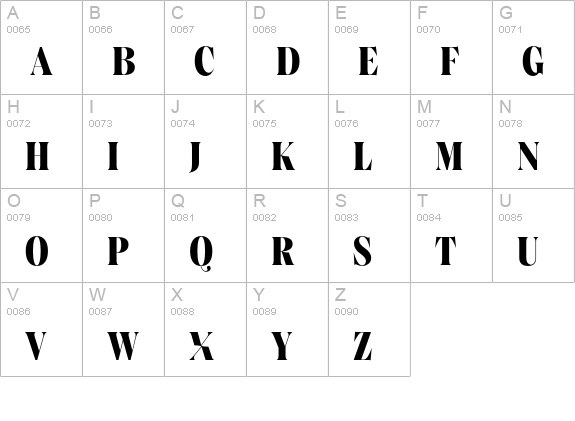
Bolognia Black is a maximum-weight, dramatic variant in the Bolognia typeface family \xE2\x80\x94 well suited to maximum-impact headlines, posters, and packaging.
Bolognia Black font is a bold and striking typeface that commands attention with its sleek and modern design. With its sharp lines and stylish curves, this font exudes confidence and sophistication. Perfect for headlines, logos, and branding projects, Bolognia Black adds a touch of elegance to any design.